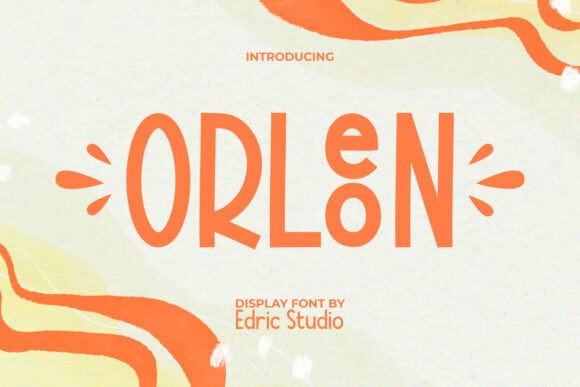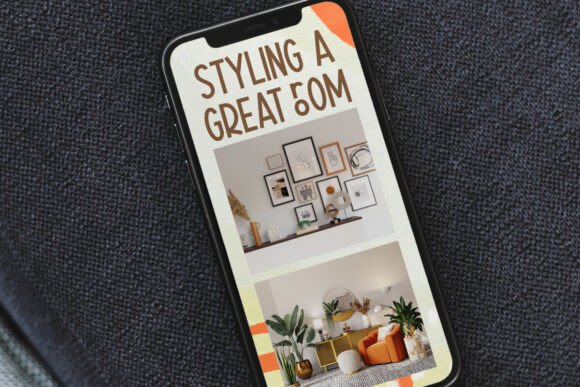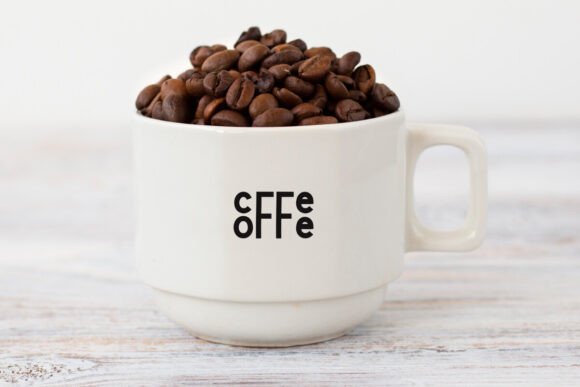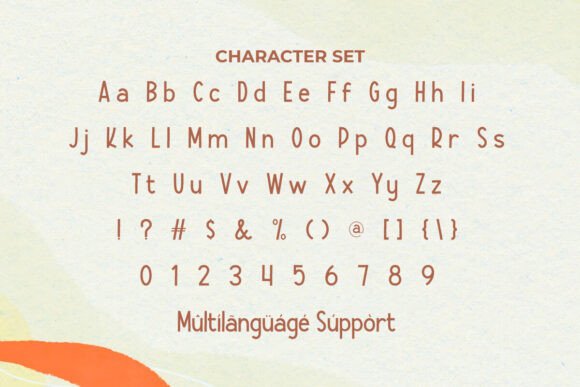
Orleon Font: A Cute Display Font for Playful Branding & Creative Design!
About the Orleon Font
The Orleon Font is here to transform your projects with its distinctive character and style. Orleon Font is a cute sans display font that brings a fun comic typeface concept. It looks sleek and tall in upper letters because condensed fonts inspire it, another unique thing it gets is the ligature character which feels creative for whatever your design is, such as apps, blogs, brochure, catalogue, header, logos, packaging design, pamphlet, poster, product label, quotes, screen print, signage, stationery, sticker, title, website, and more.
Orleon’s playful, yet sleek aesthetic makes it ideal for headlines, logos, and short-form text in branding projects, posters, and packaging where a fun, attention-grabbing element is desired. Its condensed nature and ligatures add a unique visual flair, perfect for conveying a youthful or quirky brand personality. Avoid using Orleon for body text or large blocks of information; its condensed form makes extended reading difficult.
For effective pairings, consider complementing Orleon’s playful energy with a contrasting, clean sans-serif like Lato for body copy or a more refined serif like Playfair Display for a touch of elegance. A geometric sans-serif like Montserrat could also offer a balanced, modern feel.
The font’s overall personality is best described as bold, playful, and slightly quirky, making it unsuitable for projects requiring a serious or sophisticated tone.